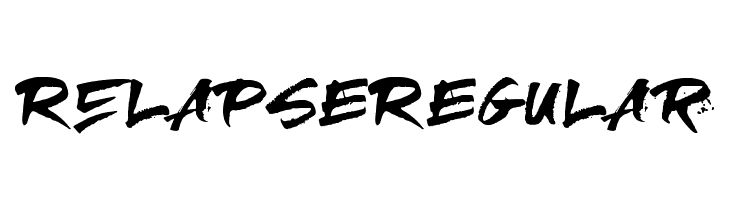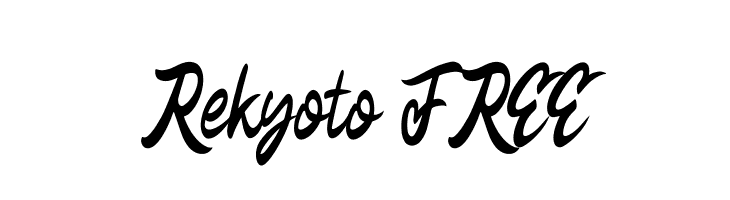
A bold, cursive font with interconnected letters and a dynamic flow.
A bold, hand-drawn font with a textured, brush-like appearance.
A playful, bold font with smooth, rounded characters and dynamic stroke variations.
A bold, rounded font with a playful and modern aesthetic.
A playful and expressive handwritten font with fluid and dynamic strokes.
A playful, informal handwritten font with smooth, flowing curves.
A bold, outlined font with a playful, three-dimensional style.
A bold, three-dimensional font with a playful and modern aesthetic.